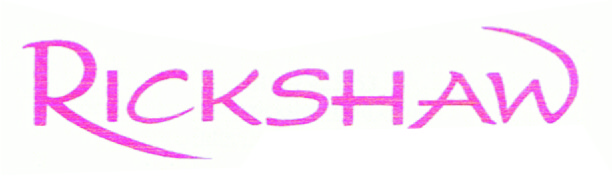
it’s the ‘A’ that looks familiar ……….. I thought it was Present script at first, but it’s not.
I’ll keep looking G. I’m sure I’ve seen it before.
I think someone fondled that font.
Glad-handed it.
Rode it hard and put it away wet.
etc etc etcLooks like parts of it were casual, and parts calligraphic.
If it’s all you need can you not just scan & trace?
You’re certainly not going to make it look worse!